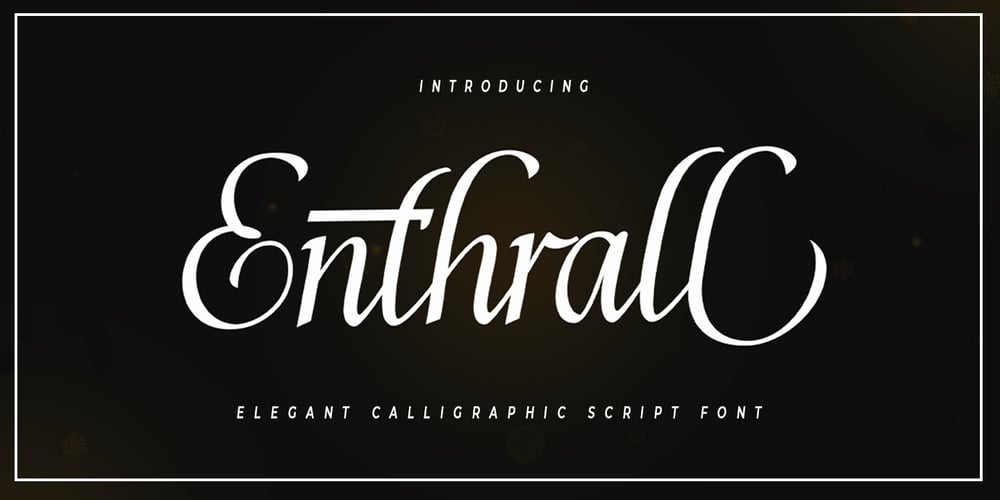
Enthrall Font Family was designed by Cut Nurfajarlia and published by Alandya TypeFoundry. Enthrall contains 1 styles and family package options. Enthrall is a calligraphy script font that comes with seductive alternates character. a mixture of from copperplate calligraphy with handwritten style. Designed to convey style elegance. Its classic style is perfect to be applied in any type formal invitation, logos, greetings, books, fashion branding, and business cards. Enthrall comes with multiple language support, with OpenType feature with stylistic alternates and ligatures to enrich your elegant design.